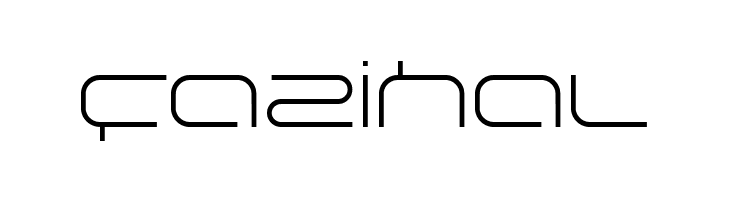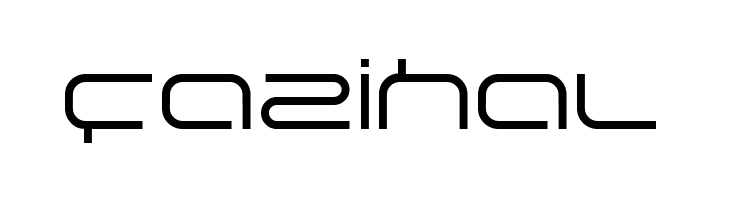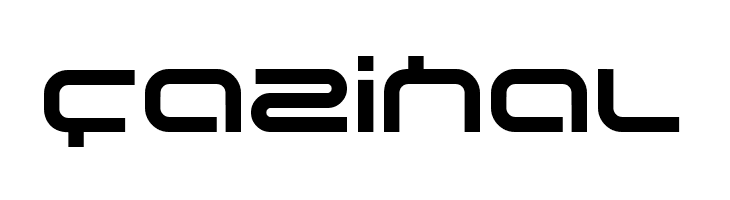
DiodeFont Font
- Font: DiodeFont
( Font by Sven Stuber - www.superlooper.de )
A futuristic, minimalist font with thin, geometric lines and a sleek design.